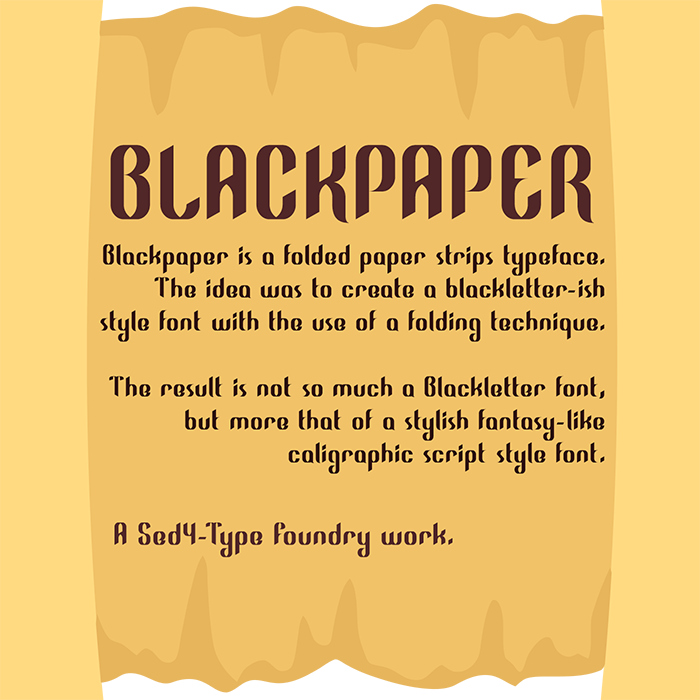
• Folder strips of paper style blackletter attempt. I wish I had better solutions for some charaters, but I had some tough struggles getting good looking glyphs for this style, for example uppercase T took me like 60 attemps and none ever really pleased. So I ended up with choosing the best of them en just went on with the rest. BUT, Zephram came to the rescue and delivered me a propper T, Arrrrr thanks matey!!!